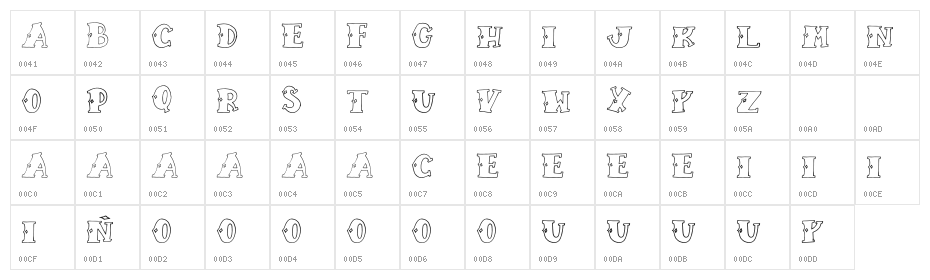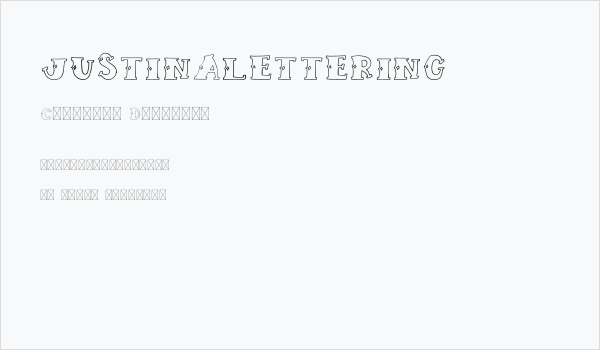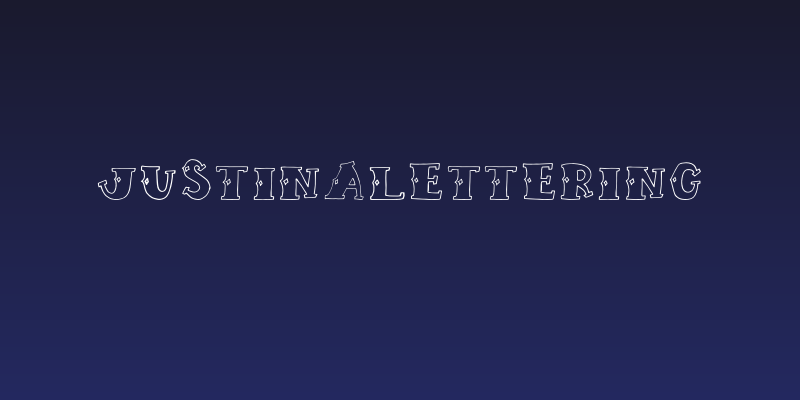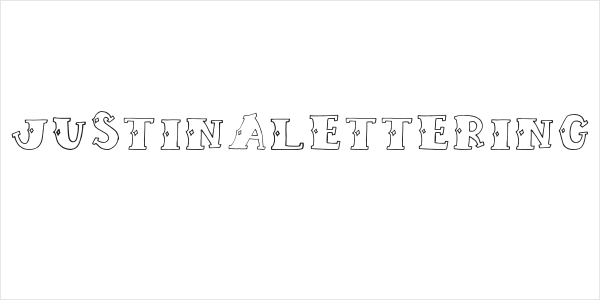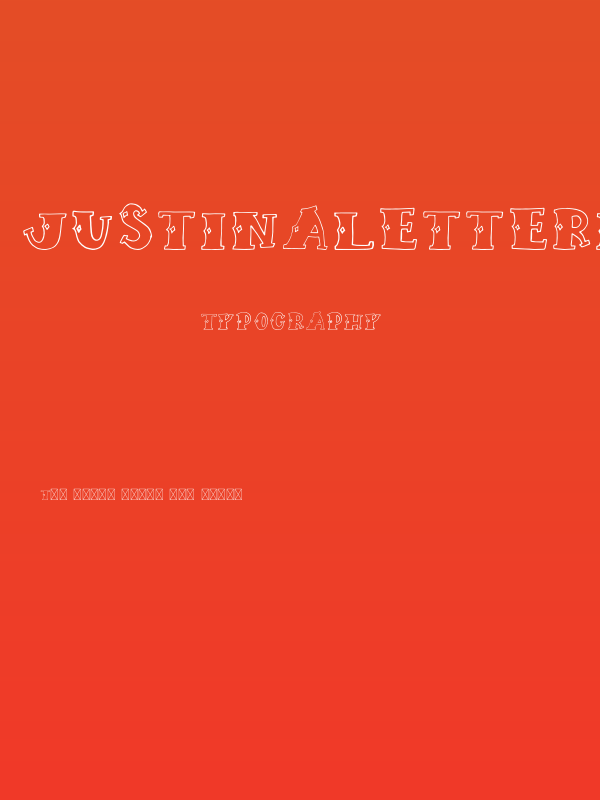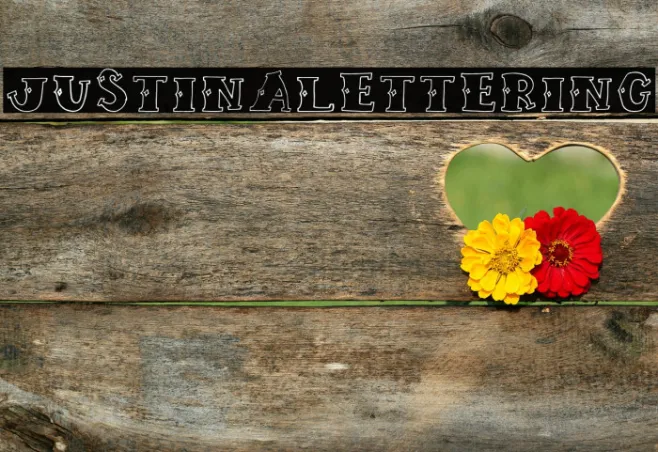
JUSTINALETTERING Font
JUSTINALETTERING Description
This font features a playful and decorative style with uppercase letters that have a whimsical, hand-drawn appearance. Each character is uniquely designed with irregular shapes and varying line thicknesses, giving it a lively and dynamic feel. The letters are bold and stand out, making them suitable for eye-catching designs. The font lacks lowercase letters, numbers, and special characters, focusing solely on the uppercase alphabet. Its artistic and informal nature makes it ideal for creative projects that require a fun and engaging visual element.
| Proposed Projects | Ideal for children's book covers, playful posters, greeting cards, and creative branding projects. |